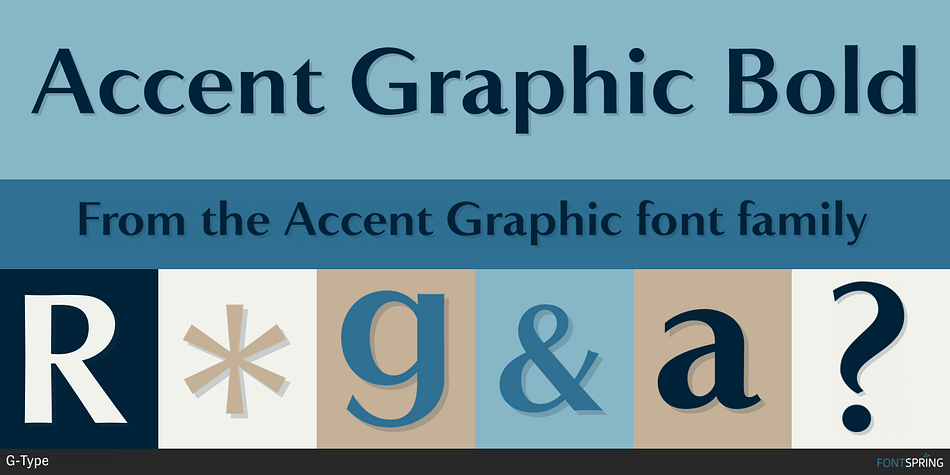
Accent Graphic Bold
Designed by Nick Cooke, Accent Graphic is a sans serif font family. This typeface has three styles and was published by G-Type.
Accent Graphic was developed as the corporate font for a London design consultancy in 1997. The starting point was the word ‘accent’ in lower case.
Accent Graphic is essentially a sans typeface with the thick/thin contrast of a serif and is the only font family in the G-Type retail collection that was originally designed for a client.
Flared stems and graceful strokes make Accent Graphic a delicately beautiful typeface with broad appeal. The font’s stylish elegance and sophistication make it a good fit for branding use, as typified by Salvatore Ferragamo’s deployment of Accent Graphic Light on their chic new Signorina fragrance line.
The family consists of three weights (Light, Medium & Bold), available in OpenType format with support for Western and Central European languages.